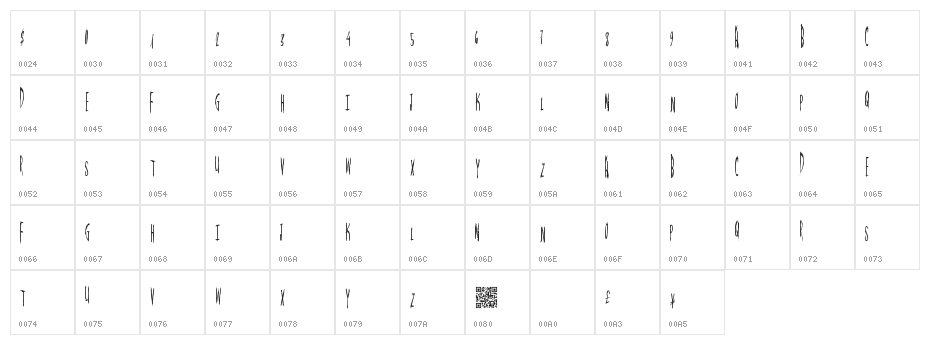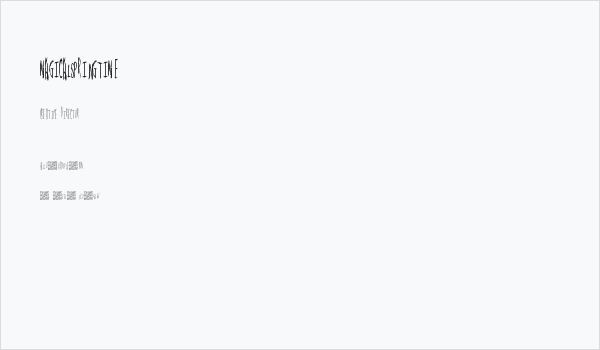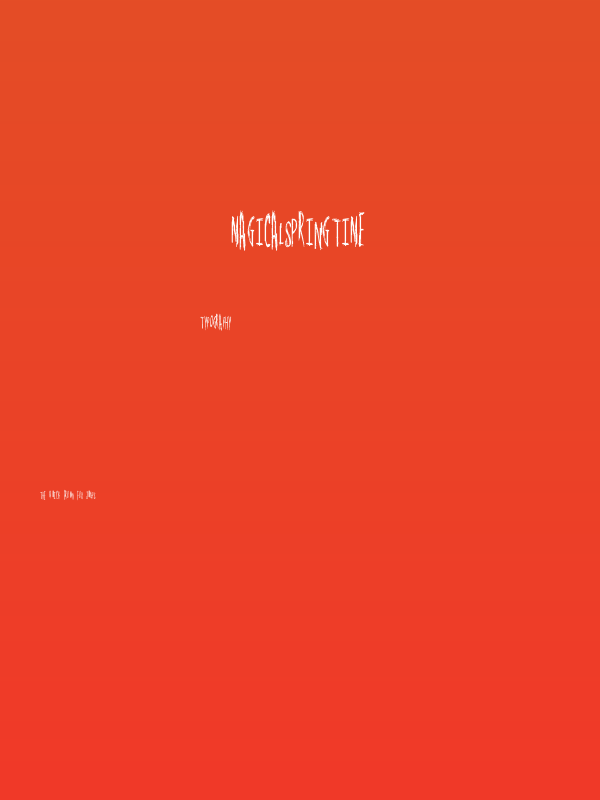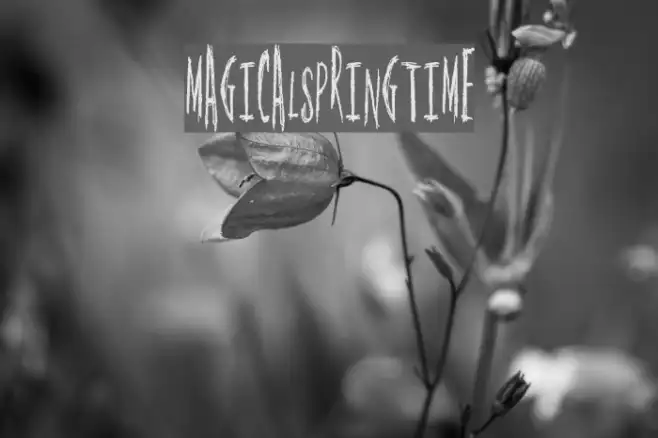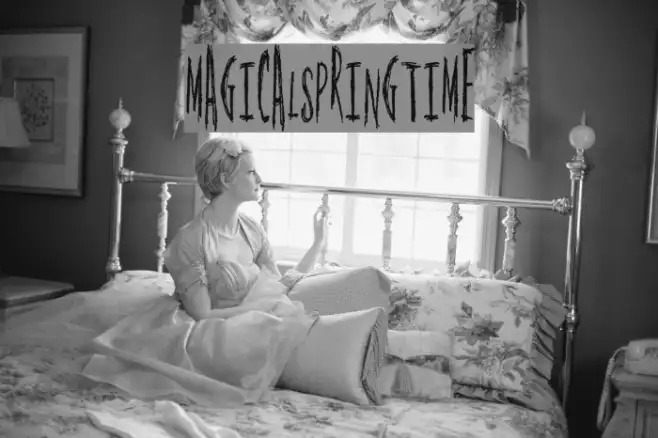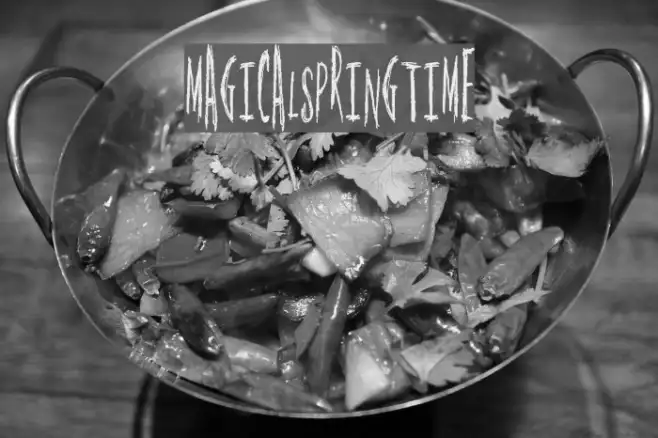
MagicalSpringtime Font
MagicalSpringtime Description
This font features a whimsical, hand-drawn style with uneven, jagged edges that give it a playful and slightly eerie appearance. The characters are tall and narrow, with varying stroke thickness that adds to the dynamic and lively feel. The uppercase and lowercase letters maintain a consistent style, with a slight slant that suggests movement. Numbers and special characters are designed in the same quirky manner, making the font suitable for creative and unconventional projects. The overall look is reminiscent of a magical or fantasy theme, perfect for capturing attention and adding a unique flair to any design.
| Proposed Projects | Ideal for fantasy-themed posters, children's book covers, Halloween invitations, and creative branding. |